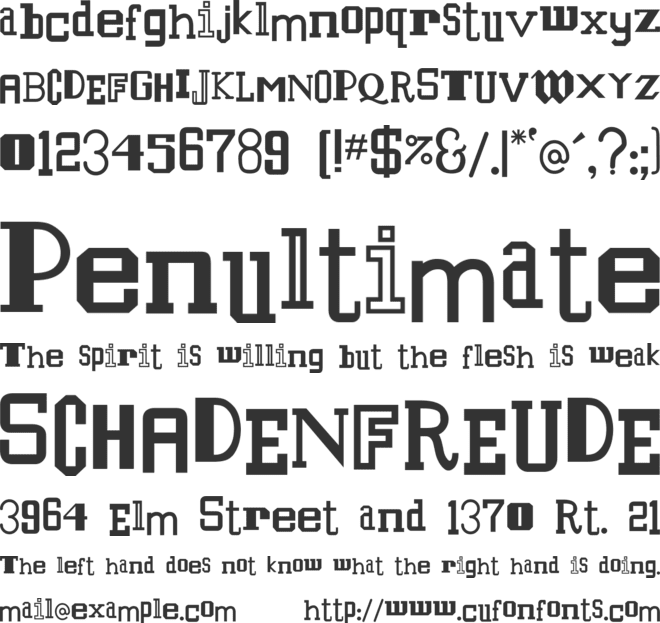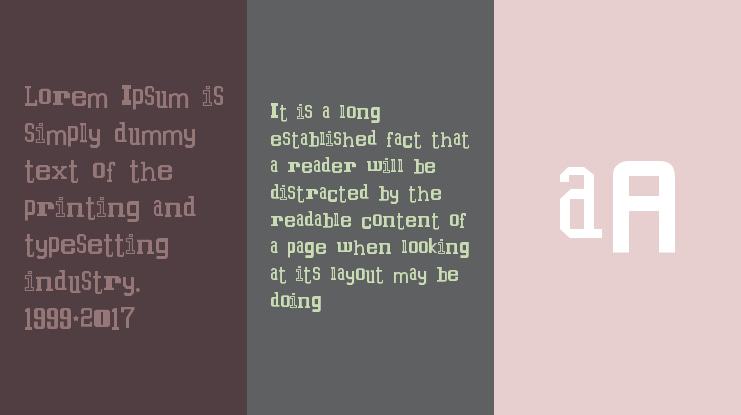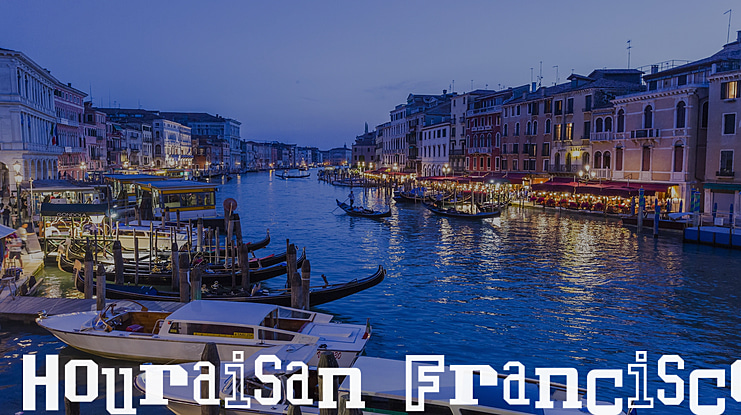
Houraisan Francisco Font
This is a TrueType recreation of Susan Kare's San Francisco and is a sister of Smoothie Francisco.
Part of Doujin Fonts series and Remade fonts series.